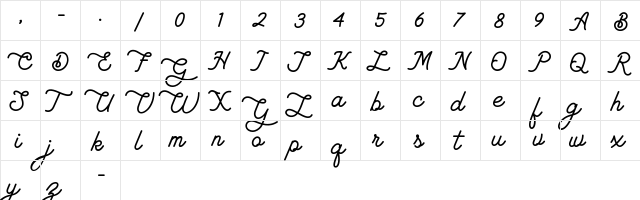
Lambretta Regular
| Designer | Almeerastudio |
Design Context for Lambretta Typeface
Lambretta takes a measured approach to typography — its balanced proportions and neutral character make it a reliable workhorse for both digital and print work.